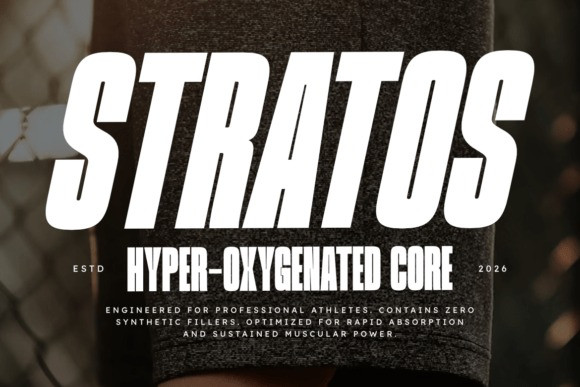
Valcore Font
Valcore Font  a modern condensed sans serif font, brimming with boldness and power. Experience the fusion of crisp lines and a towering structure perfect for assertive headlines, distinguished logos, sporty brandings and high-octane advertisements. The striking design of Valcore injects a dash of professionalism and contemporariness to your visual appeal. With the availability in Regular and Italic versions, exuding in OTF and TTF formats, Valcore is all about creating an impactful and energizing typographical universe.